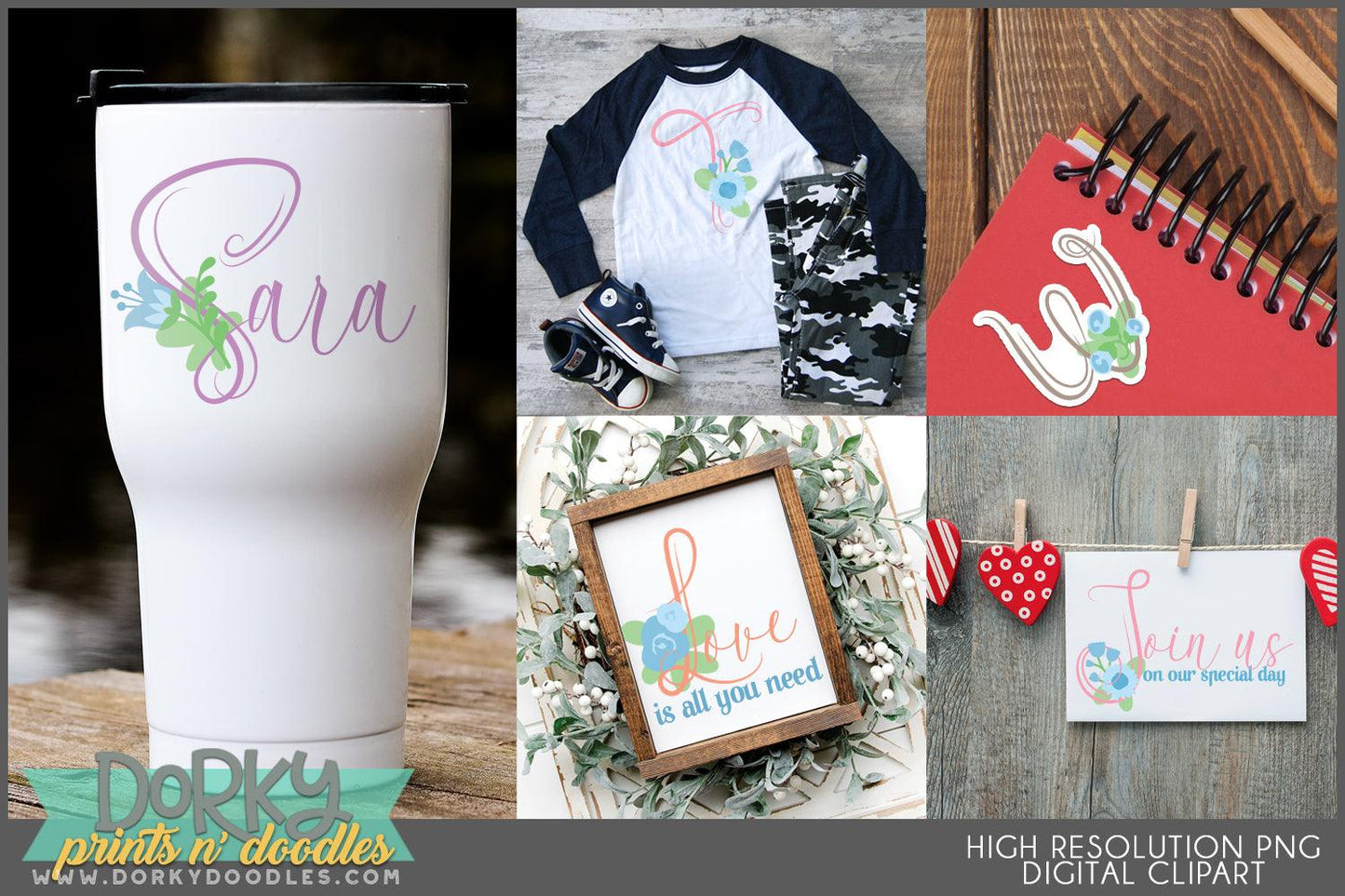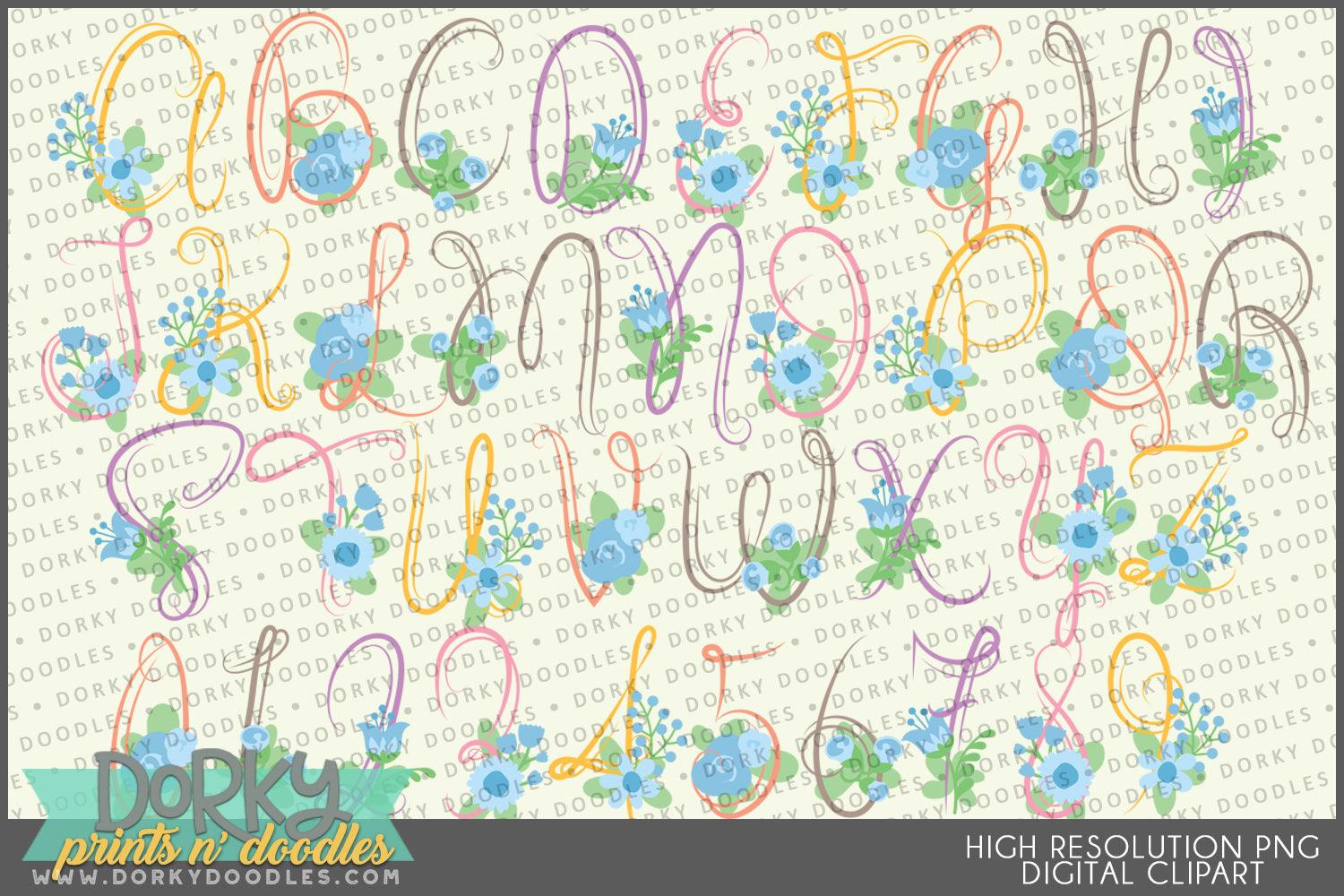
Swirls and Flowers Alphabet Clipart
These elegant floral script alphabet clipart images look fabulous on cards, in scrapbooks, party invitations, planner stickers, sublimation projects, and decor! You will get 36 Digital Clip Art images in high resolution PNG format (they come as a ZIP file that you can download instantly once payment has cleared).
• the full alphabet and numbers 0-9 using elegant swirls and flowers.